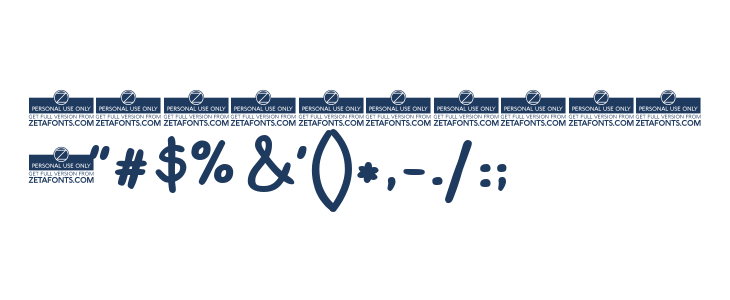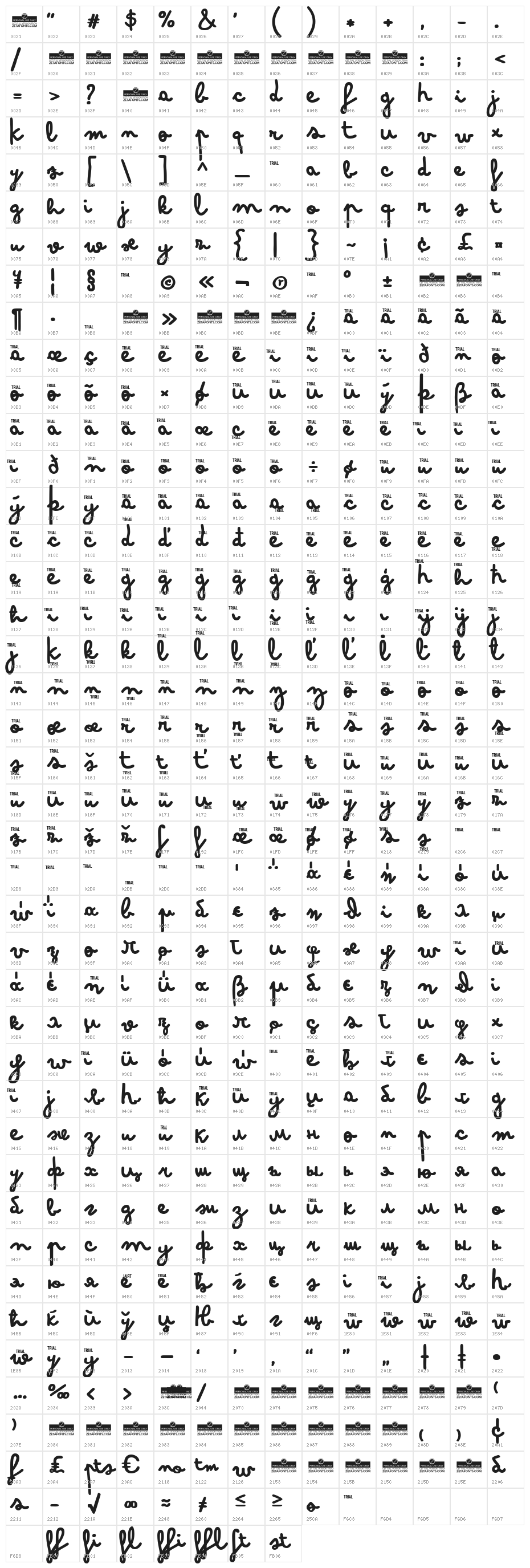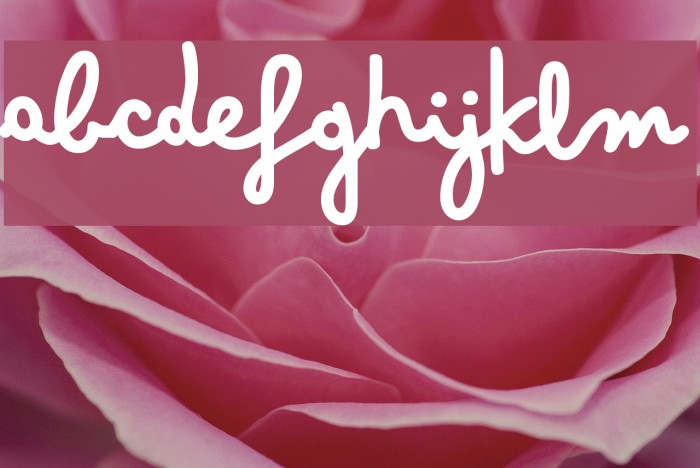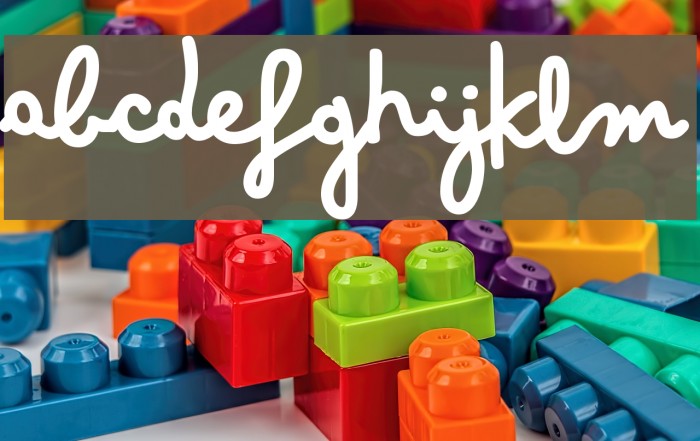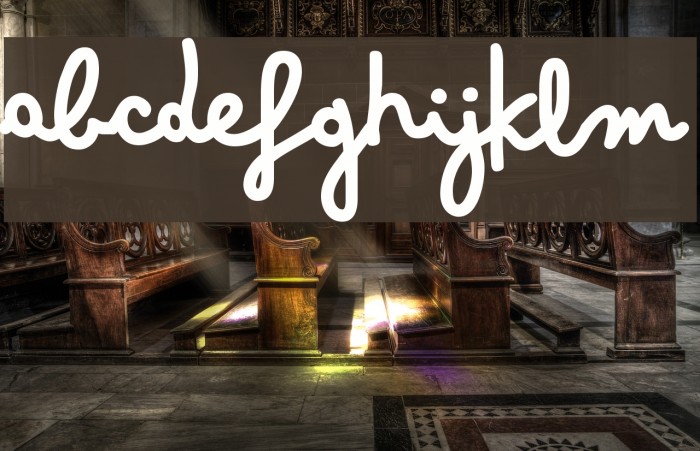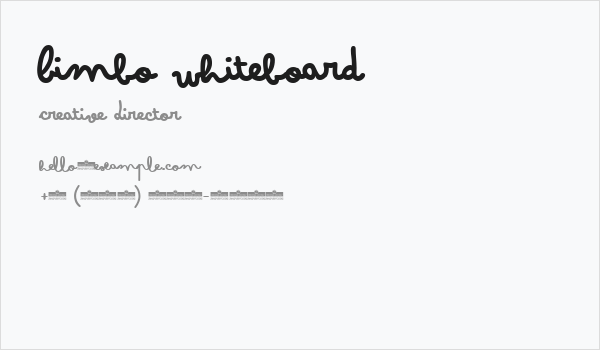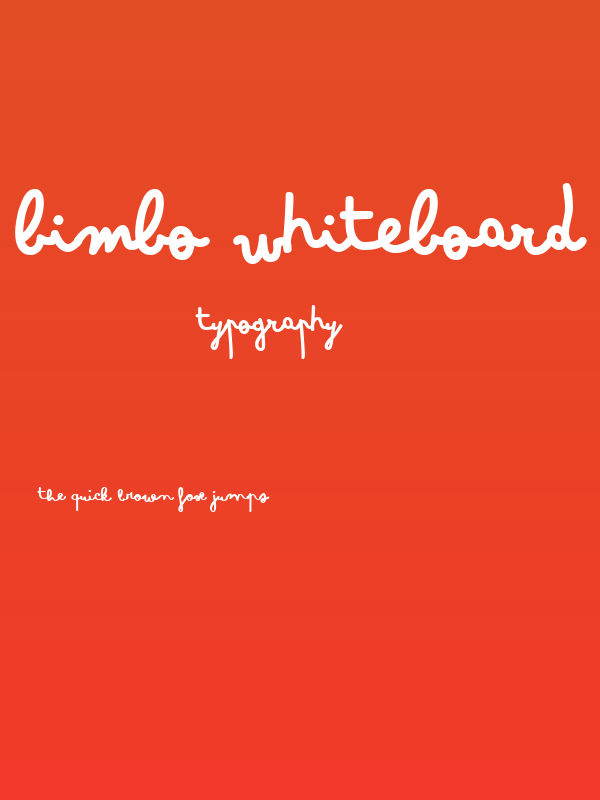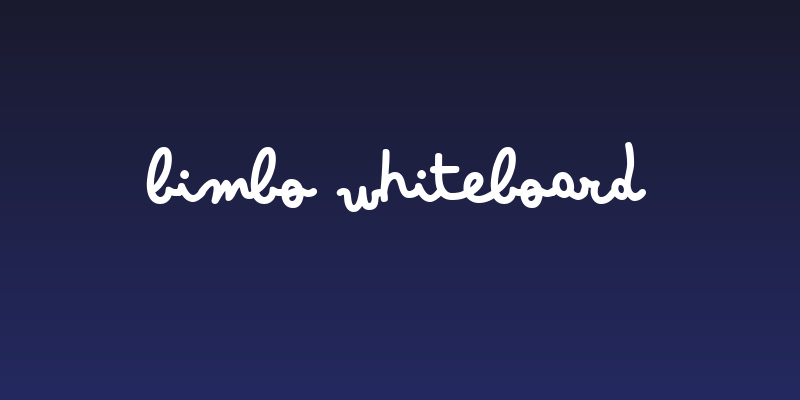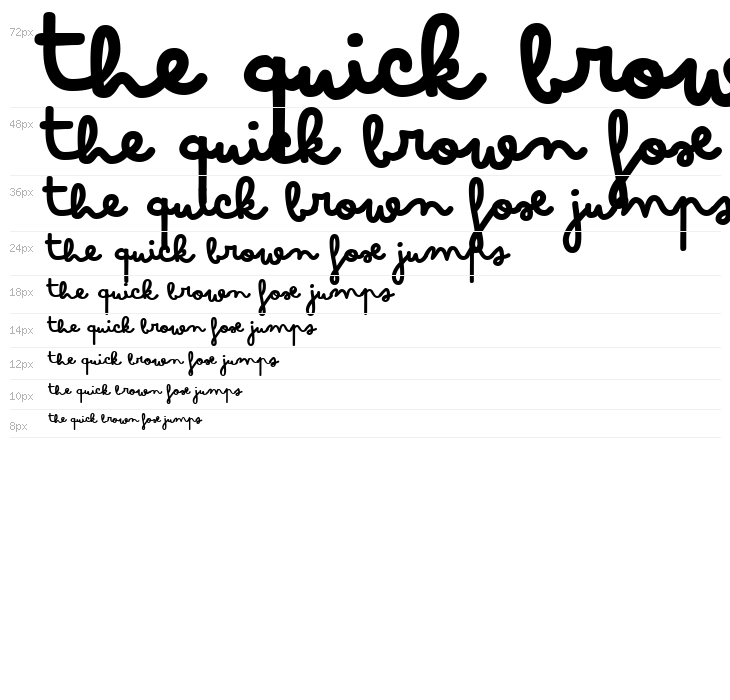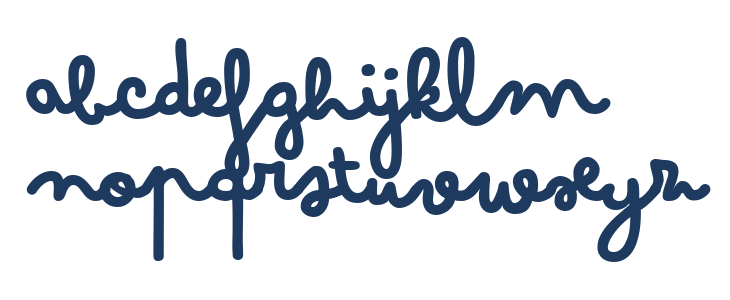
Bimbo Whiteboard Font
Bimbo Whiteboard Description
This font features a playful and casual handwritten style, characterized by smooth, flowing lines and a connected script. The letters are rounded and maintain a consistent stroke width, giving it a friendly and approachable appearance. The lowercase letters are particularly distinctive with their looping ascenders and descenders, adding to the font's charm. The special characters are designed to match the overall style, ensuring a cohesive look across all text. This font is ideal for projects that require a personal touch or a relaxed, informal vibe.
| Use Case | Logos, Headlines, Informal Text |
| Proposed Projects | Ideal for greeting cards, invitations, personal branding, and social media graphics. |